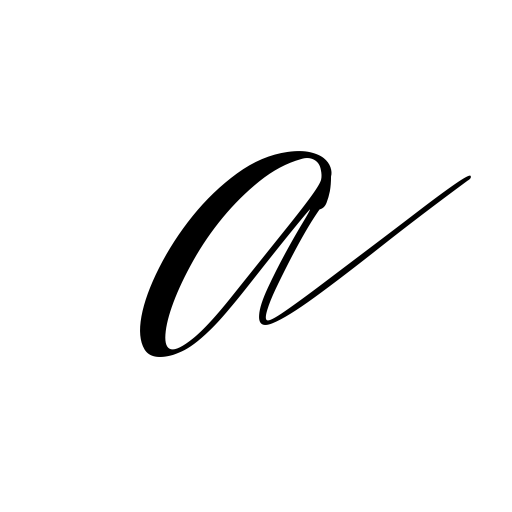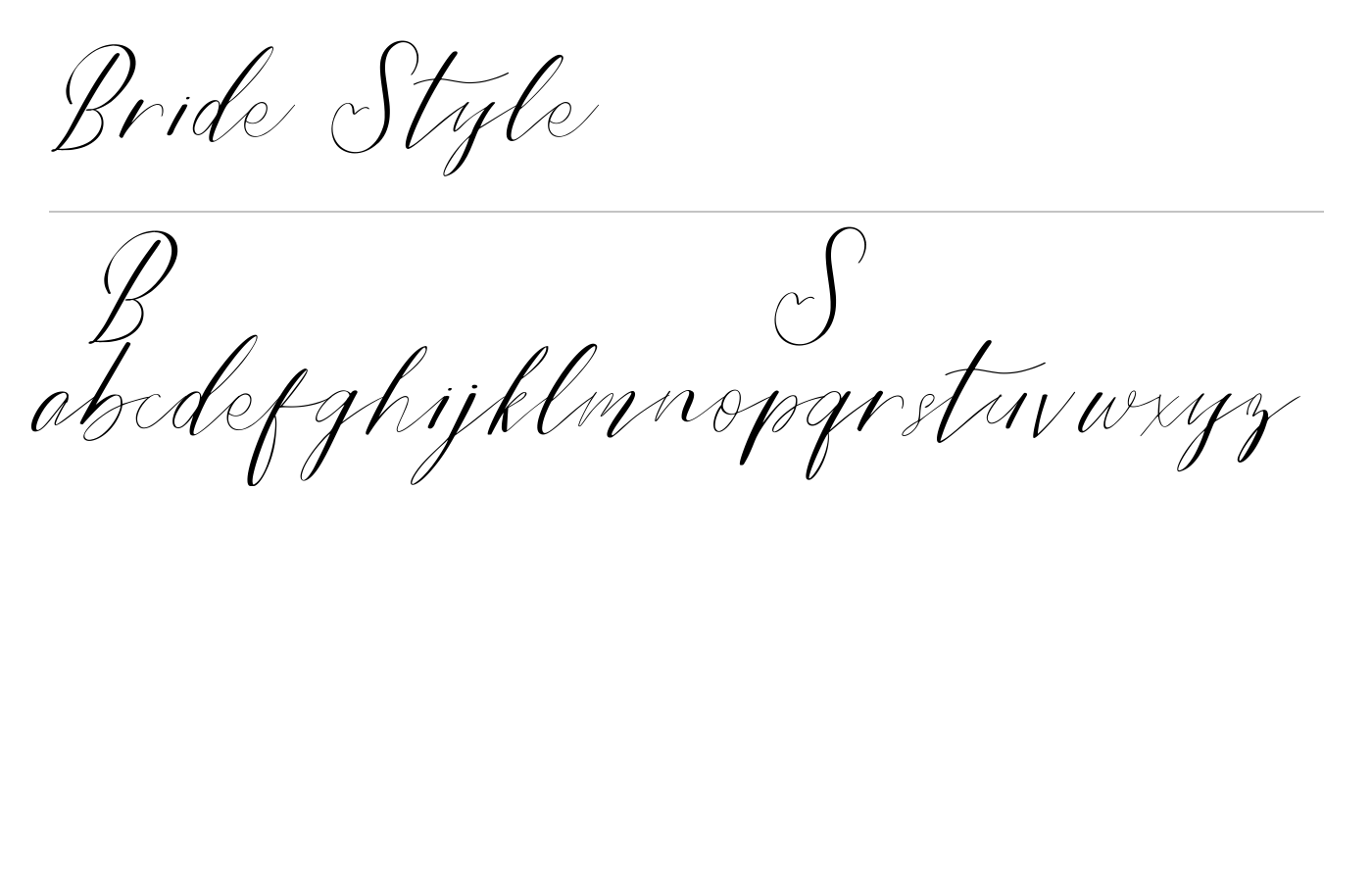
Bride Style DEMO is a delicate and elegant script font characterized by its thin, flowing strokes and graceful, calligraphic letterforms. It conveys a romantic and refined mood, making it an excellent choice for wedding invitations, luxury branding, and stylish editorial designs where a touch of sophistication is desired. Its airy spacing and slender lines create a light, feminine feel ideal for upscale and decorative applications.
| Font family | Bride Style DEMO Font |
| Designer | Ian Irwan Wismoyo |